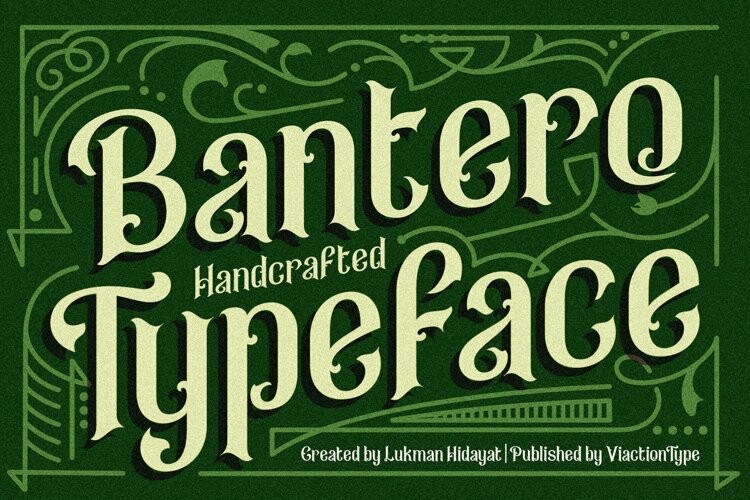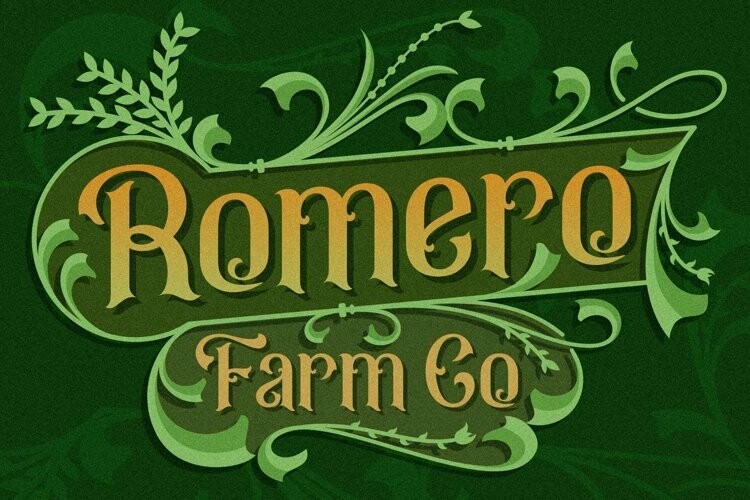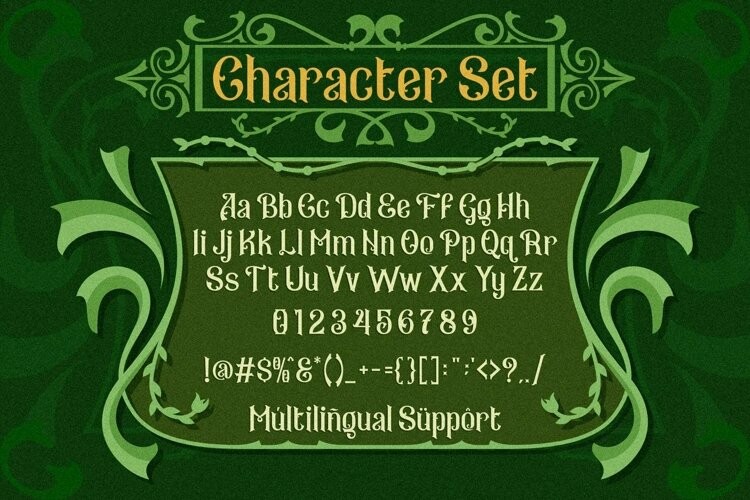
Bantero Font
Bantero FontBantero Typeface is a display font with a vintage theme and a victorian style. It’s perfect for vintage-themed projects. The font pack includes a bonus of 6 vintage ornaments which are very easy to edit. Font features include: